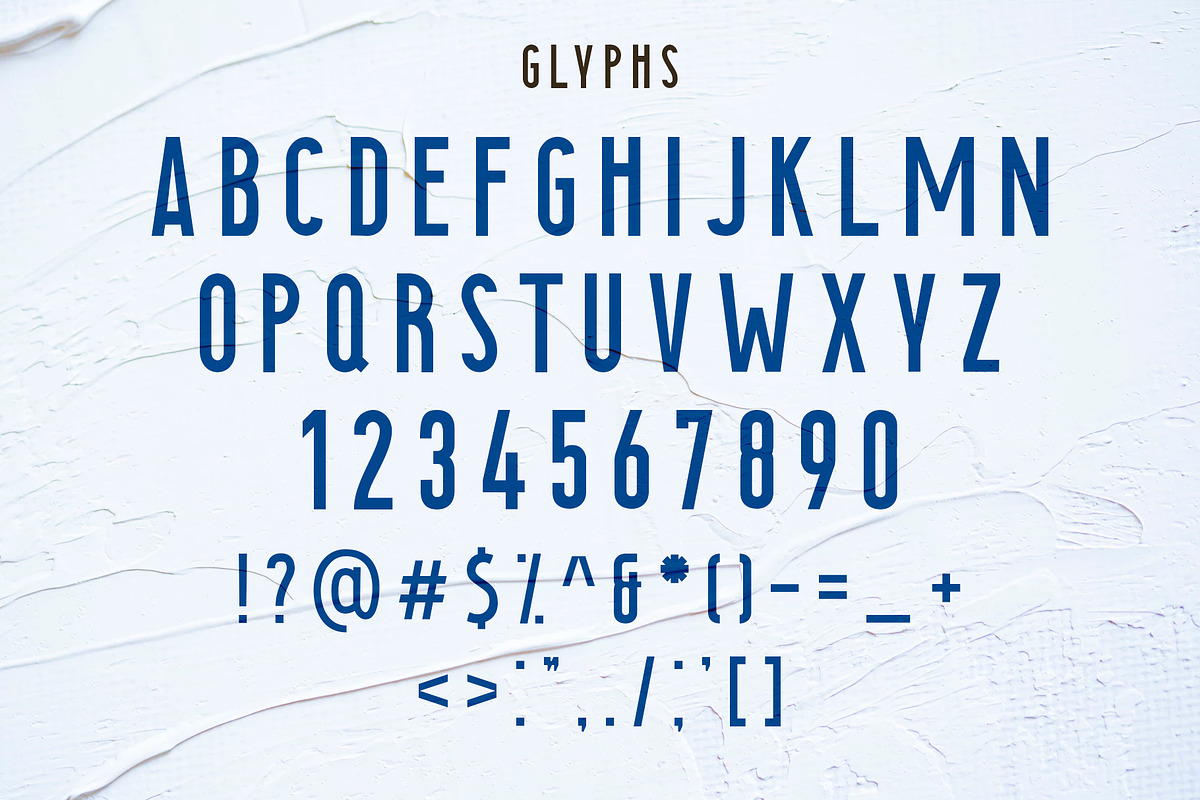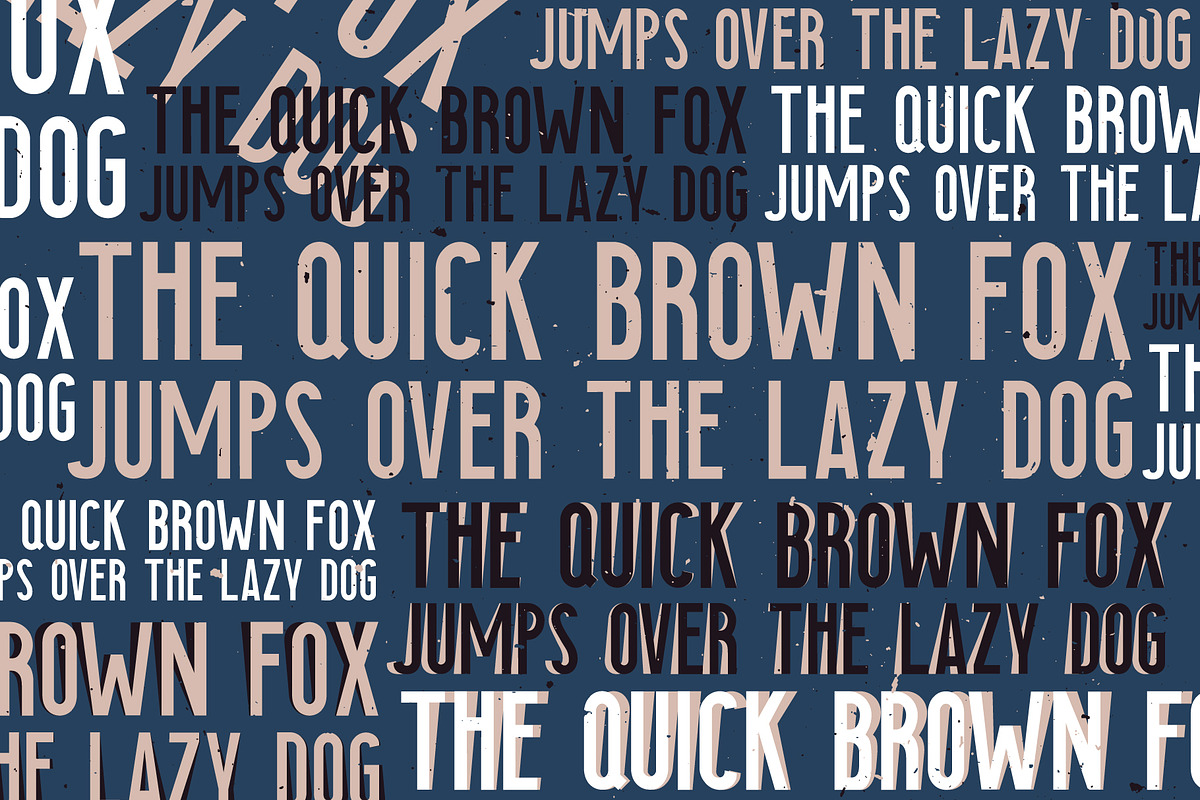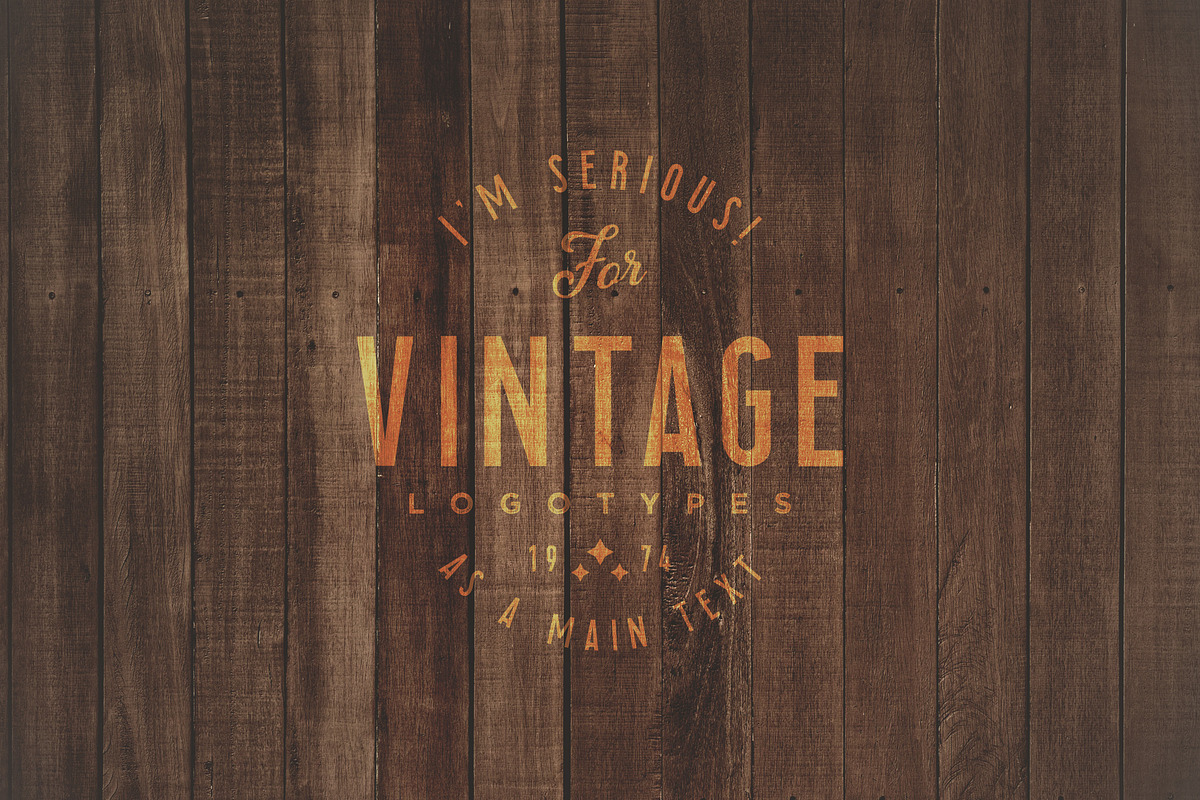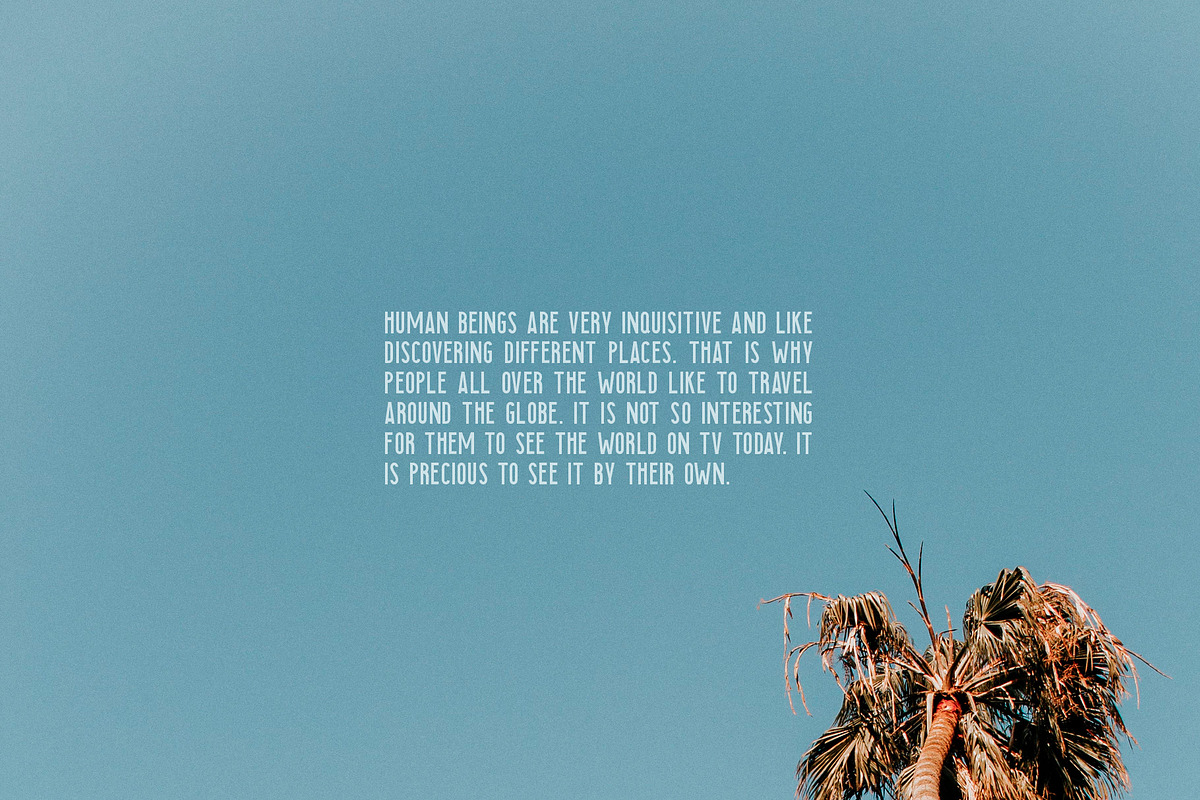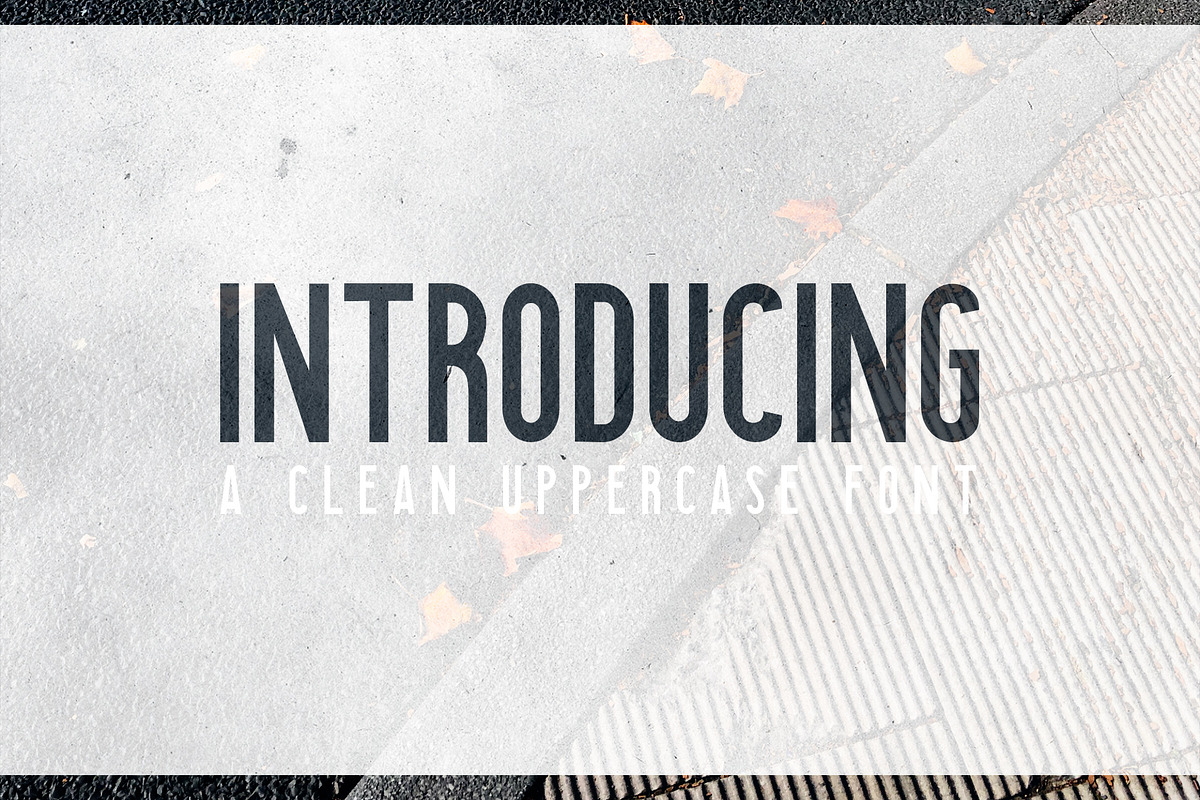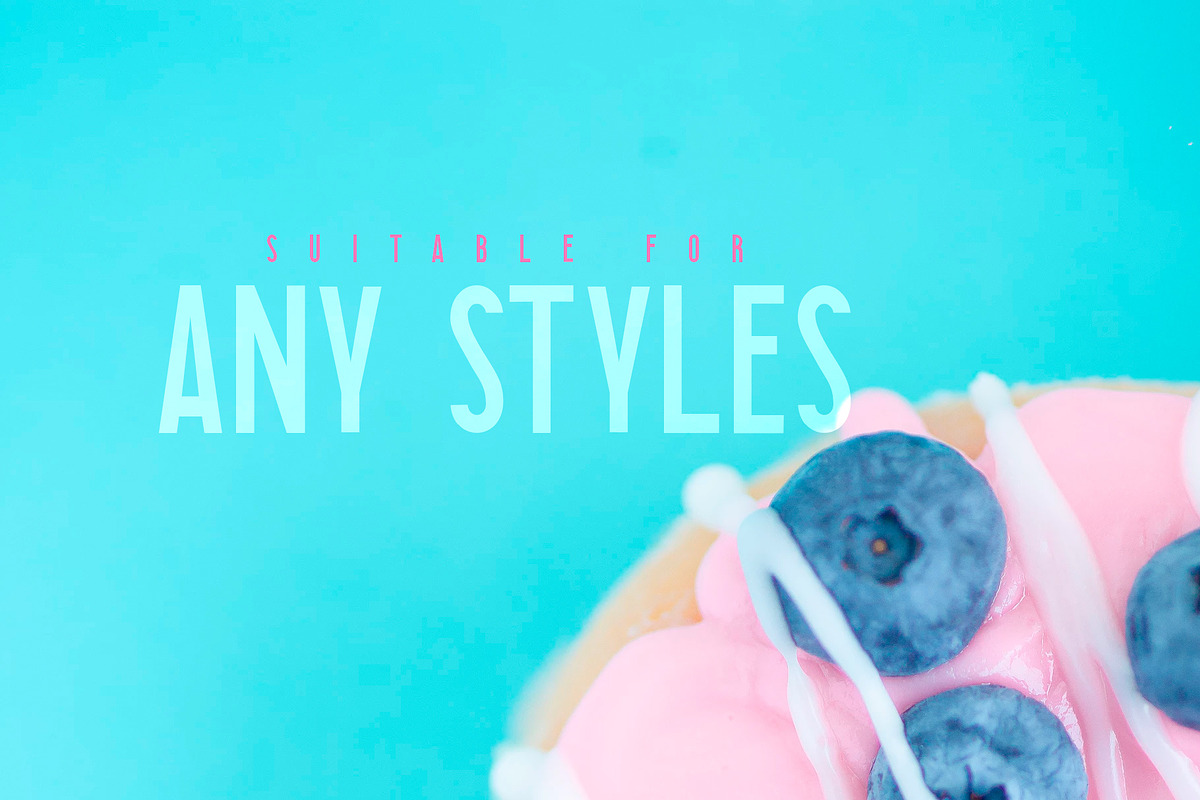
Searocks | A clean condensed font
Introducing Searocks - multipurpose condensed uppercase clean sans serif typeface.
Searocks is a classic all-caps sans serif font whic may be used for absolutely different purposes - from the design of cute postcards to use in a rough vintage old-school logos. Having clean lines,this font will be appropriate wherever is needed the severity of the design. But mix it with rough vintage fonts (in particular script fonts) - and it will fit into the overall concept of retro design.
Use it for t-shirt prints, business cards, flyers, posters, ads, restaurant menus, signs, typography design, quotes and any graphic design.